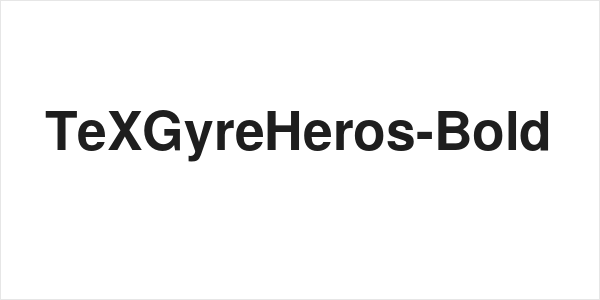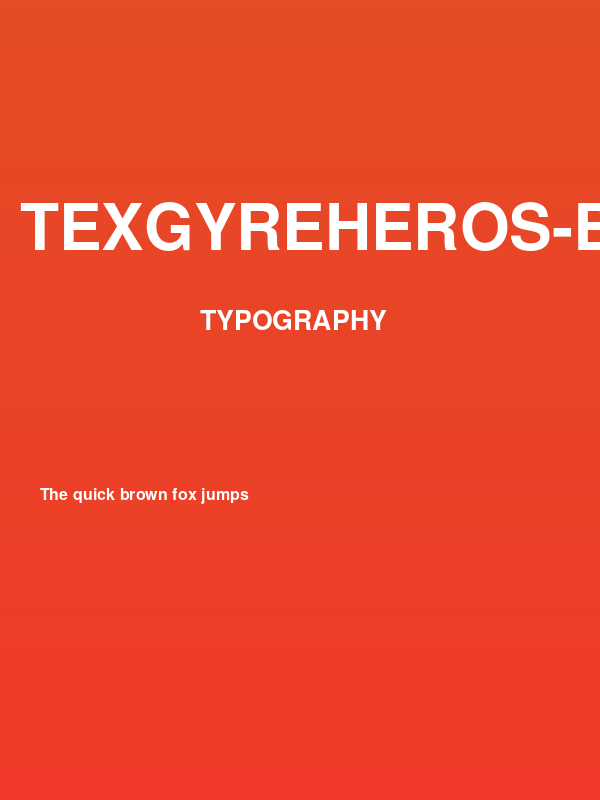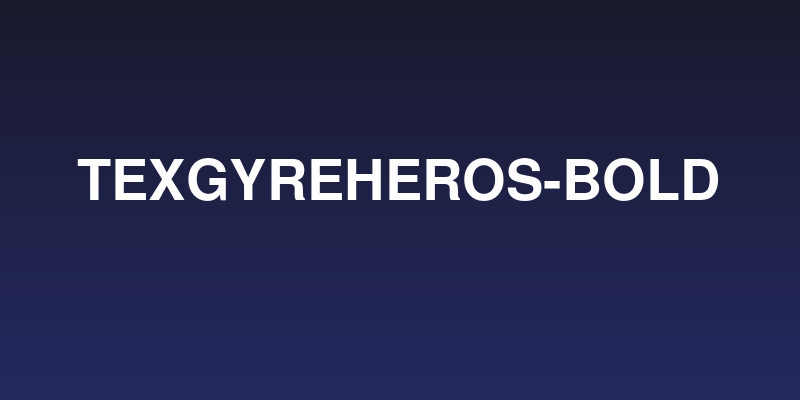
TeXGyreHeros-Bold Font
TeXGyreHeros-Bold Description
This font exhibits a bold and robust sans-serif style, characterized by its clean and modern appearance. The uppercase letters are uniform in height, providing a strong and consistent visual impact. The lowercase letters maintain a similar width, ensuring readability and balance. The numerals are clear and distinct, matching the overall boldness of the font. Special characters are well-defined, adding to the versatility of the typeface. The font's design is straightforward, making it suitable for a wide range of applications where clarity and impact are essential.
| Use Case | Headlines, Logos, Advertising |
| Proposed Projects | Ideal for branding, advertising, headlines, and digital content where a strong, modern presence is desired. |